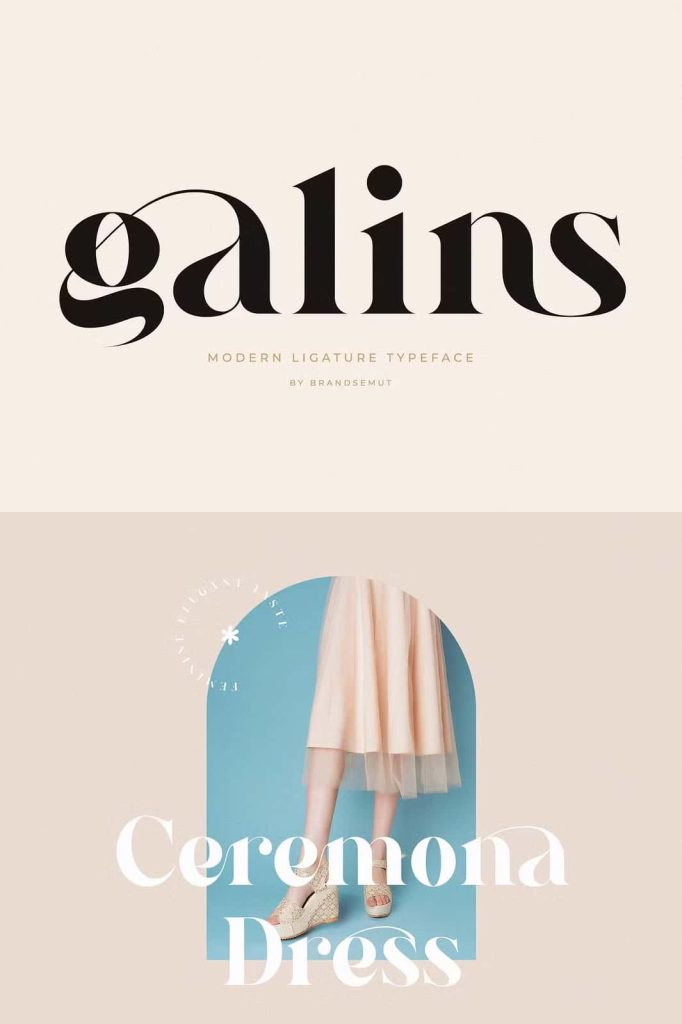
Galins – Ligature TypefaceleastedApril 24, 2025Fonts Introducing the new Galins Ligature Typeface!! Galins is a modern and elegant serif font. Download